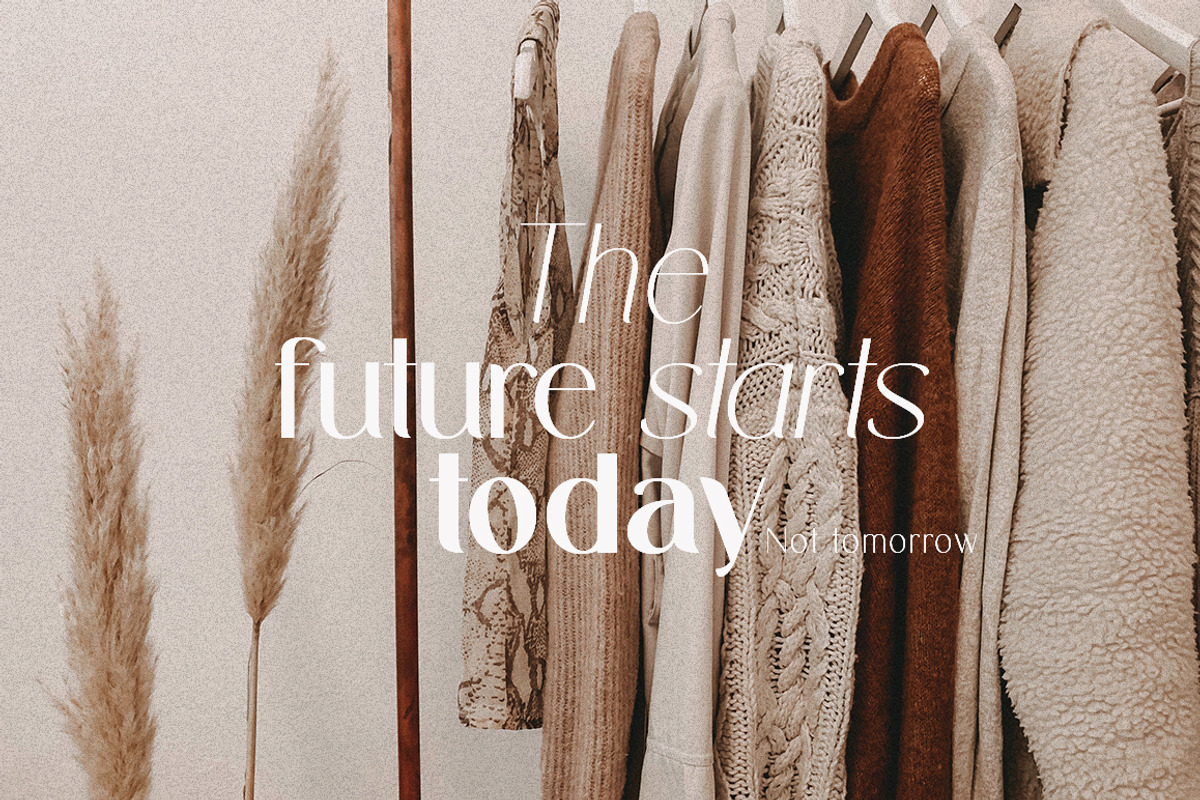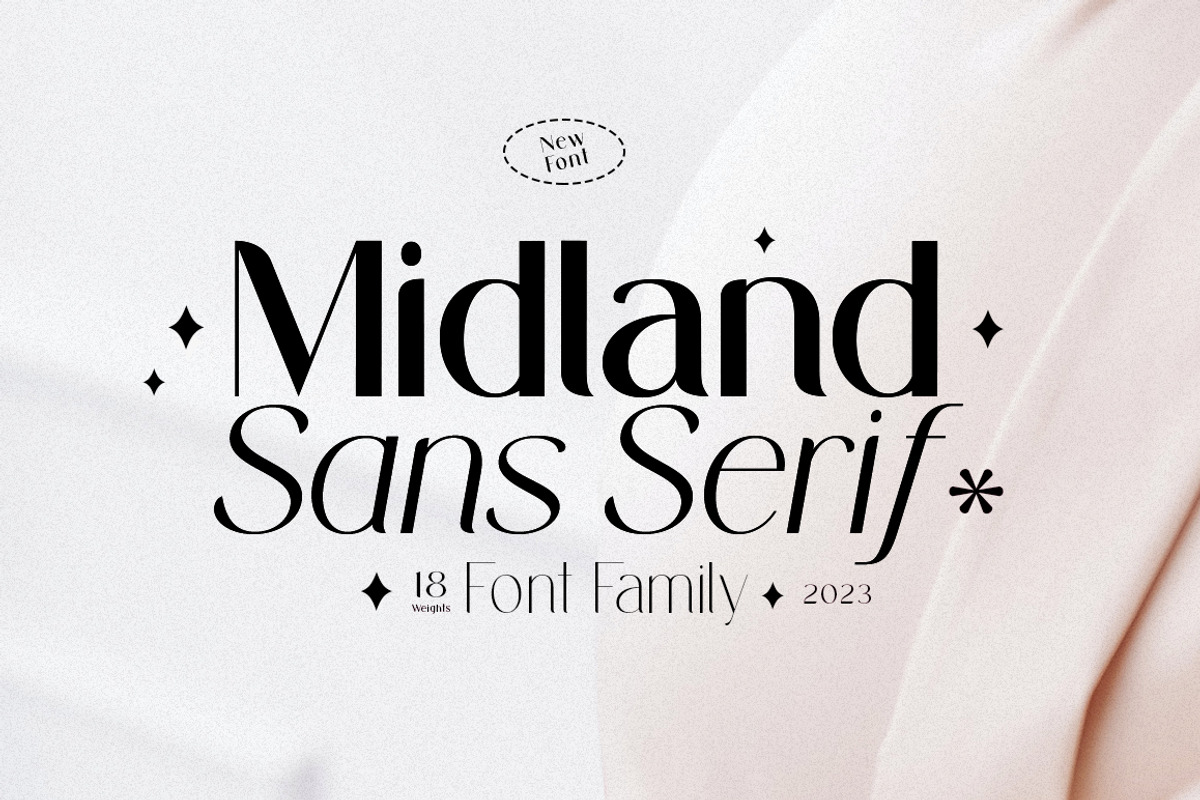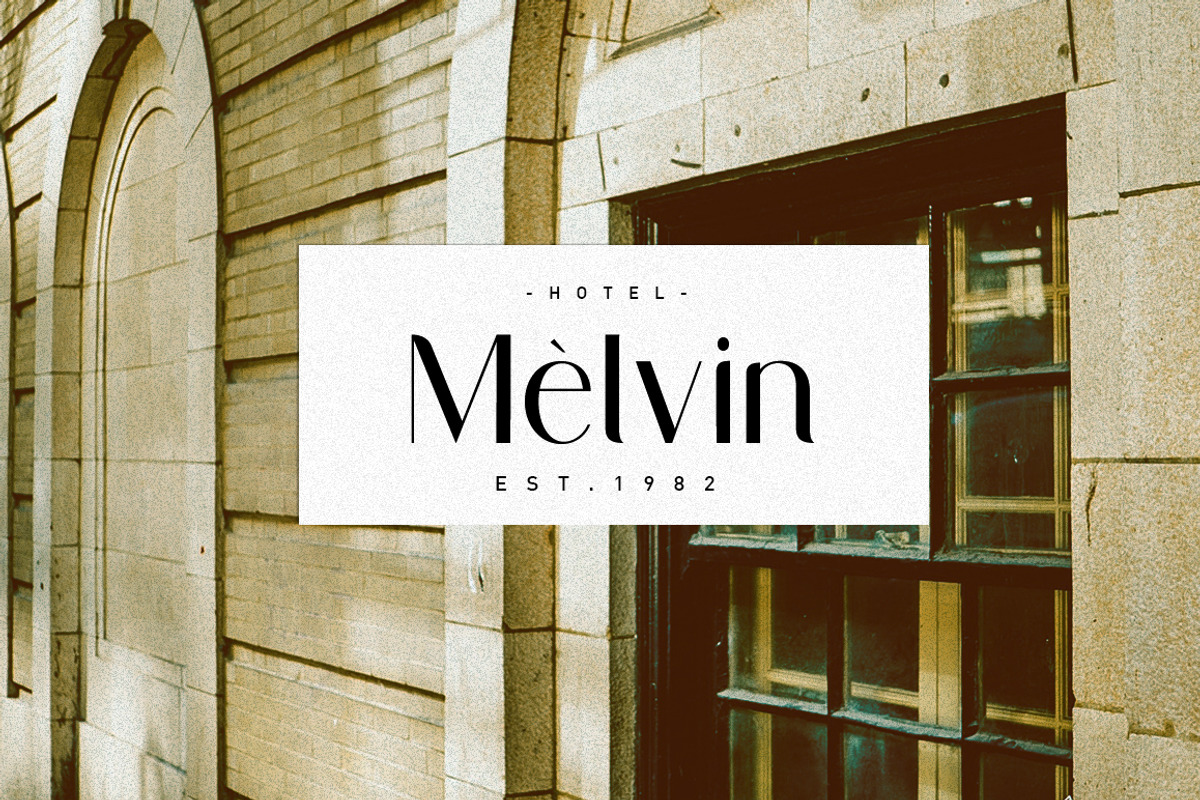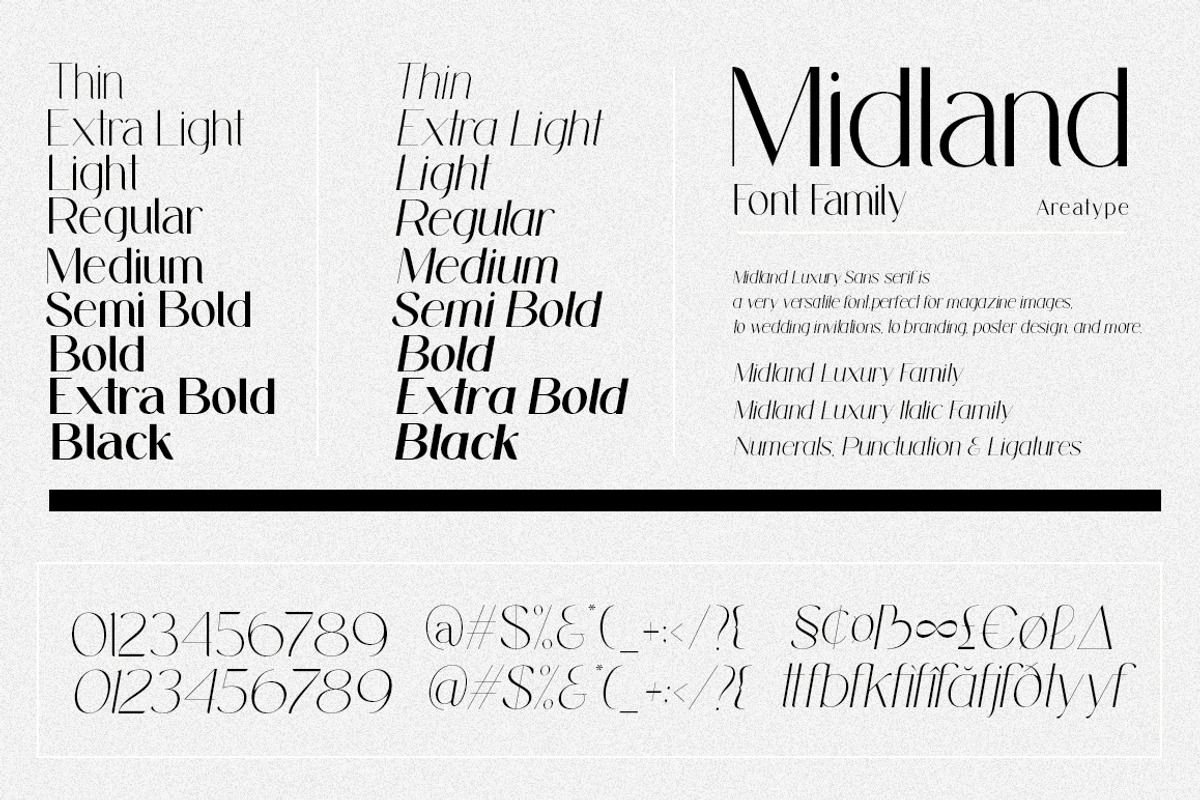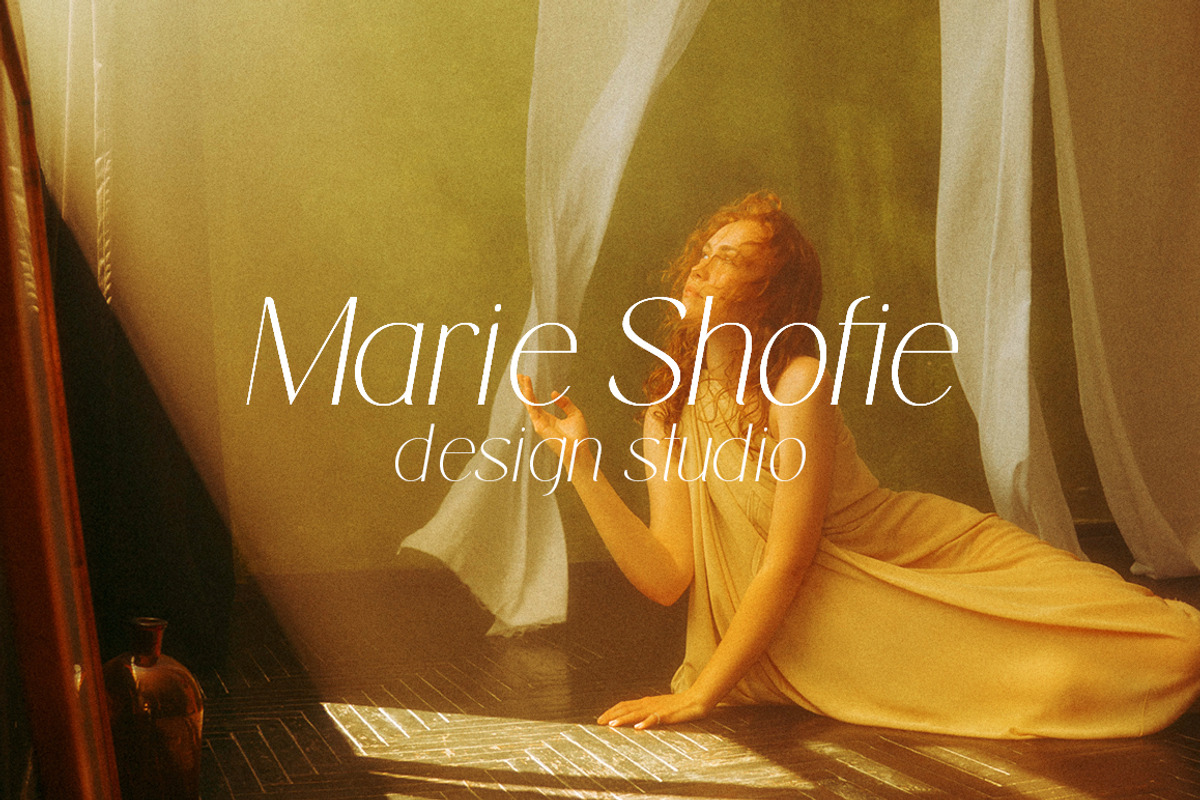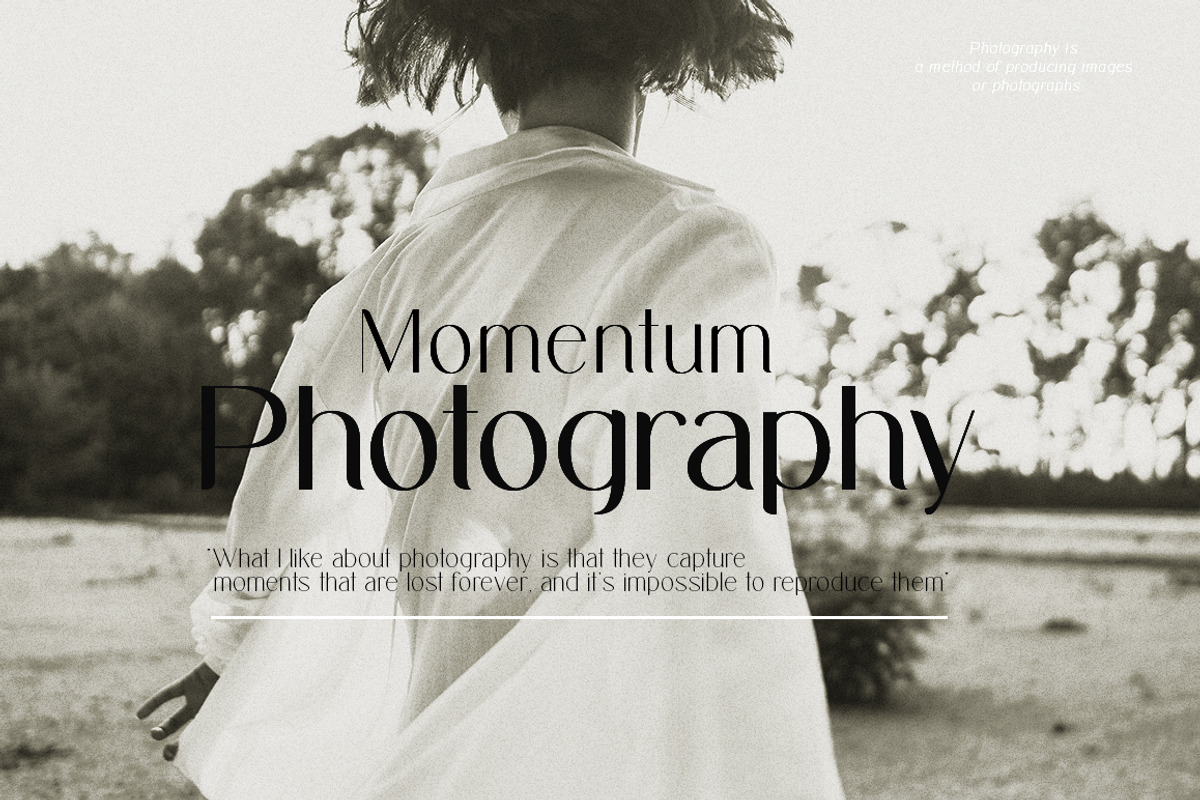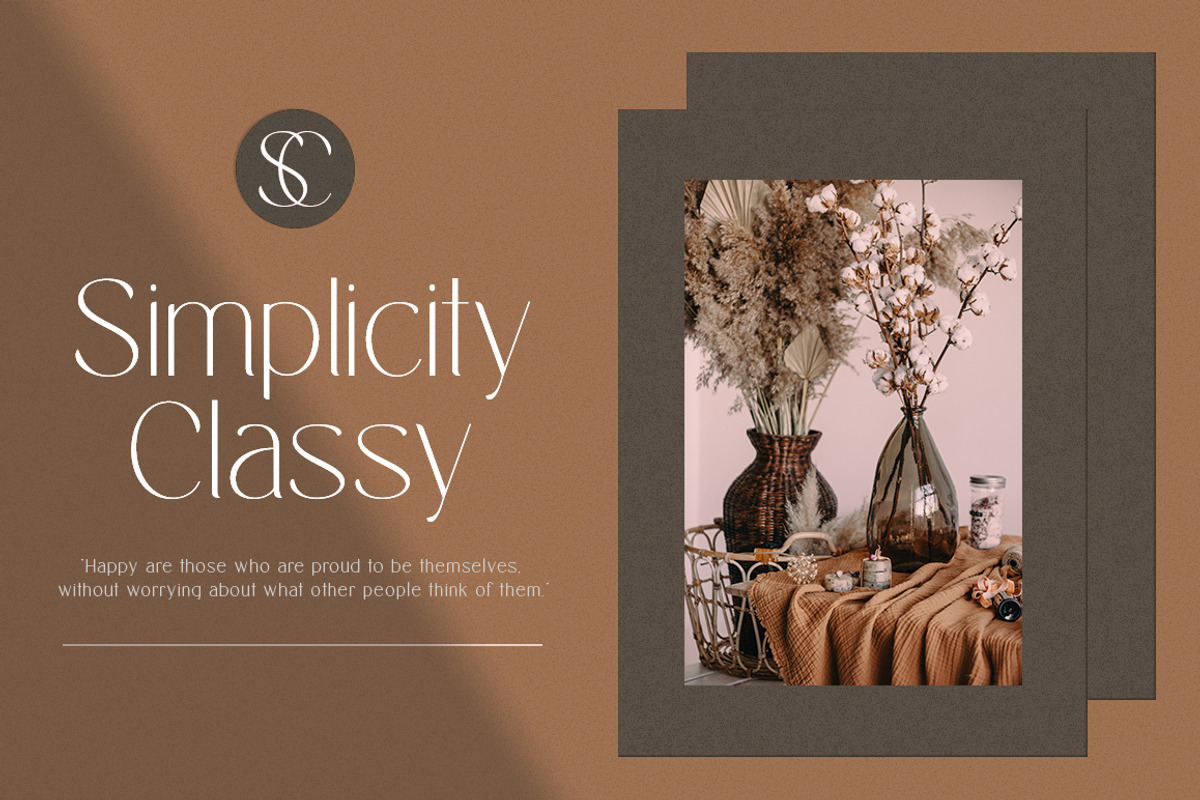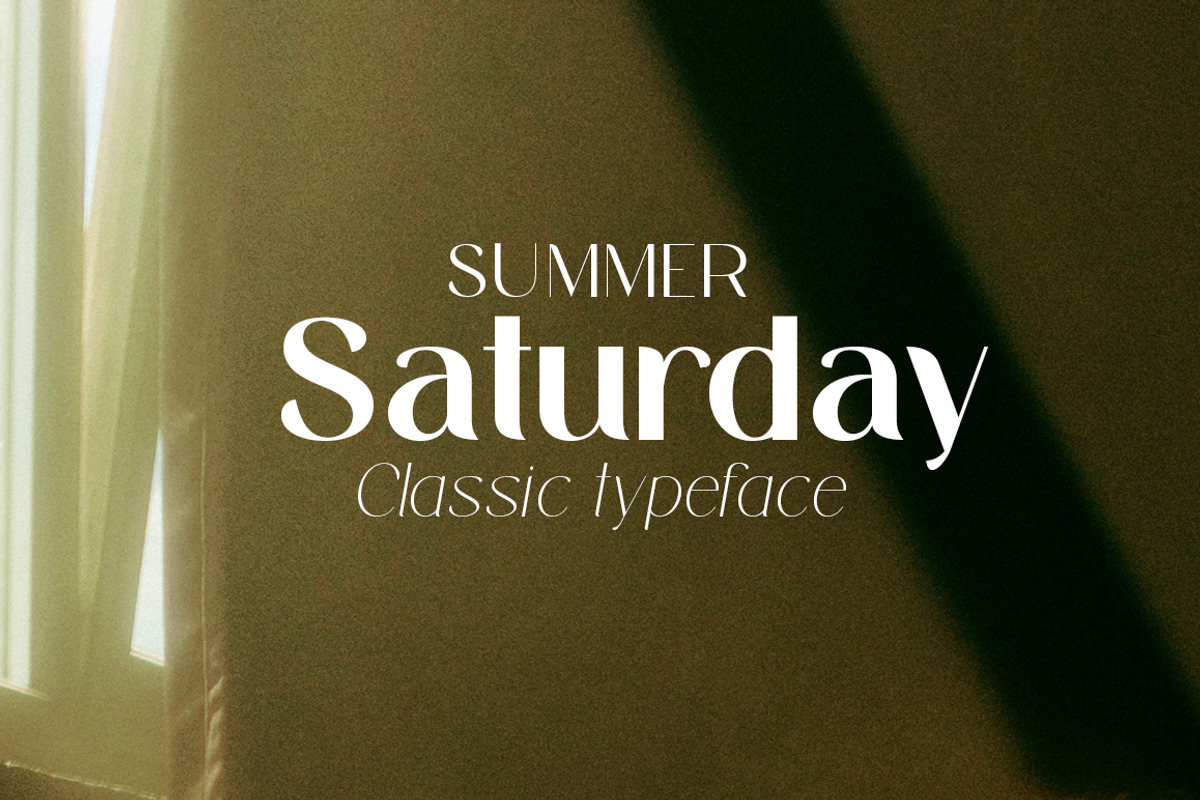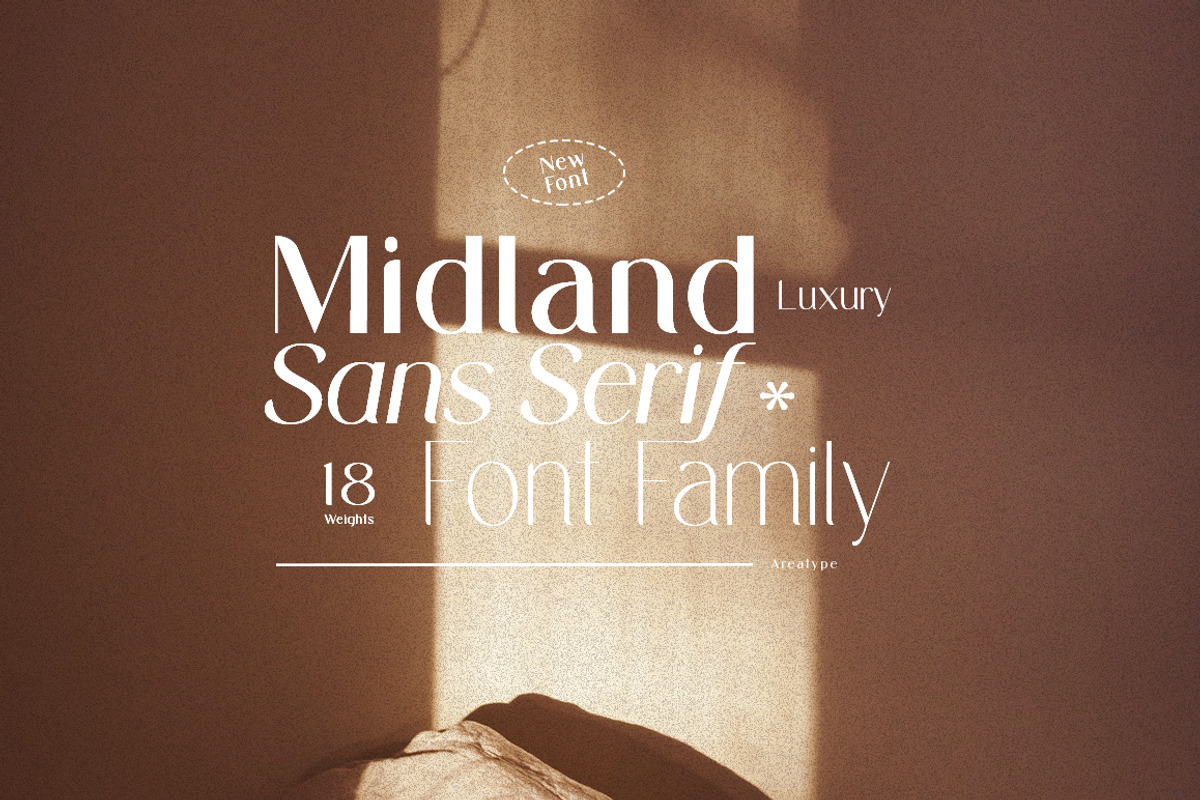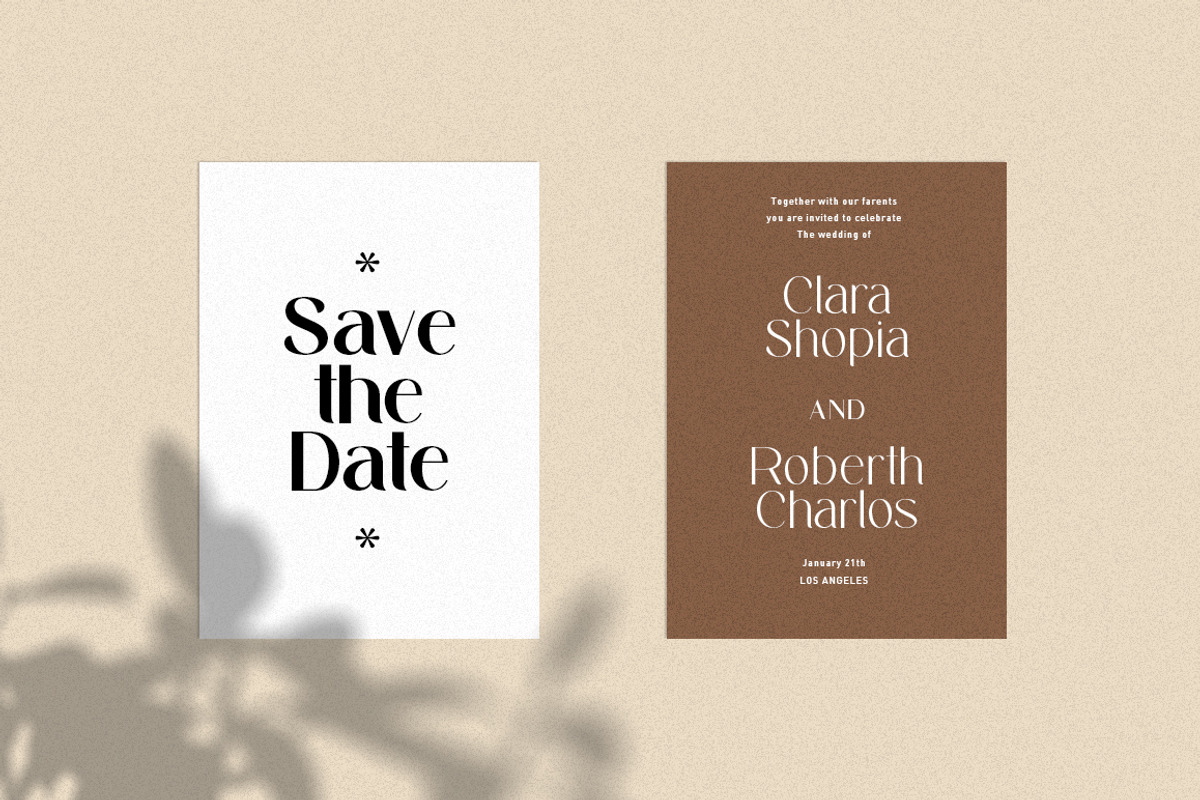
Midland Luxury Font Family
Midland Luxury Sans serif is a very versatile font. perfect for magazine images, to wedding invitations, to branding, poster design, and more.
Midland Luxury Family
Midland Luxury Italic Family
Numerals, Punctuation & Ligatures